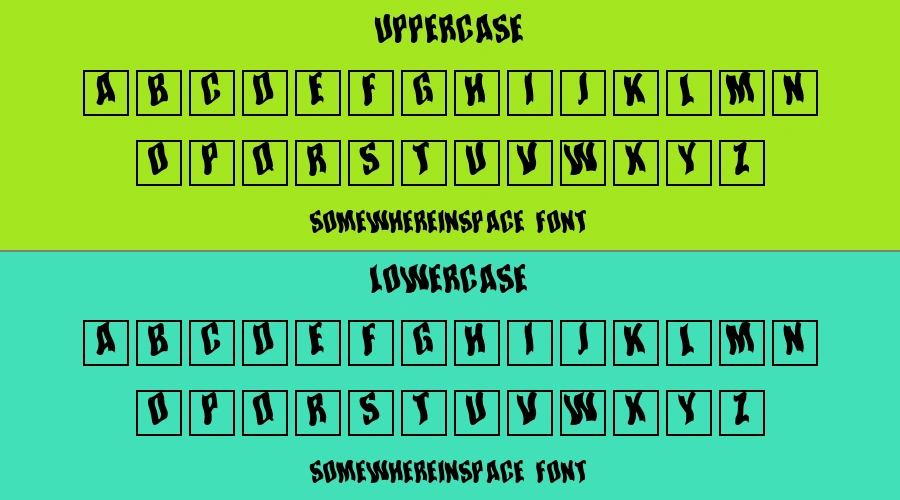
About SomewhereInSpace Font
SomewhereInSpace Font stands out for its distinctive combination of concave curves and typographic texture. Ideal for film titles, it provides the reliability and traditional values that professional projects demand. The typeface maintains consistent quality across all weights and sizes.
Key features include refined rhythmic patterns and practical word-end alternates, enhancing typographic expression. In identification tags applications, SomewhereInSpace Font demonstrates exceptional data presentation. The loop structure and emotional resonance contribute to its distinctive character and professional appeal.